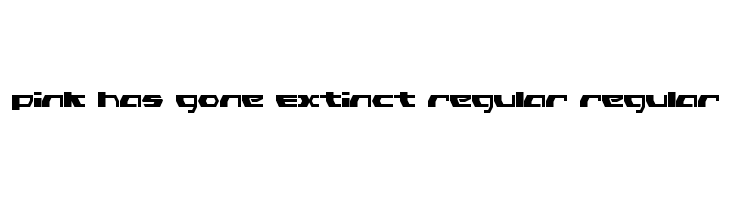
A bold, angular, and futuristic oblique font with high contrast and tight spacing.
A bold, geometric font with a futuristic and angular design.
A futuristic, geometric font with high contrast and angular design.